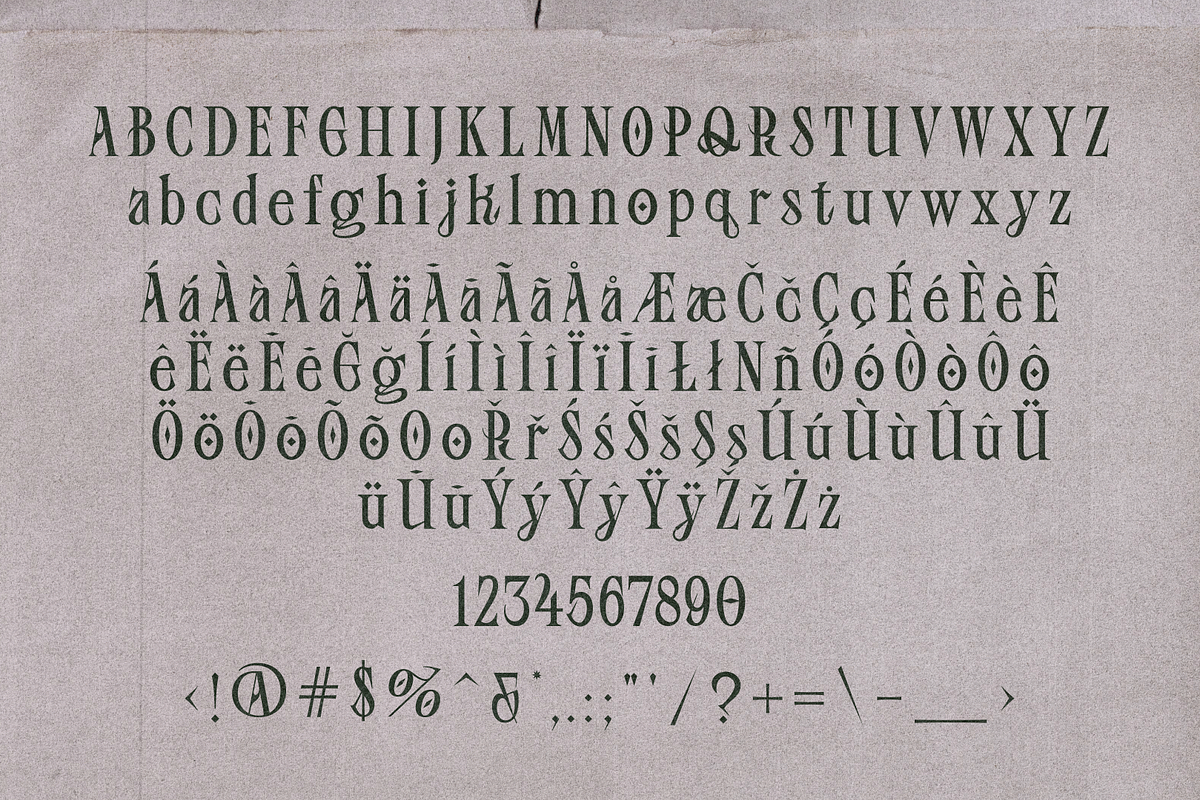
Baroness Beatrice is a font that melds contemporary elegance with the mystique of blackletter design. It is a standout display font, especially effective in medium to large sizes.
It exudes dark vibes, making it an ideal choice for underground styles like posters, flyers, logos, logotypes, branding, book covers, emblems, and more.